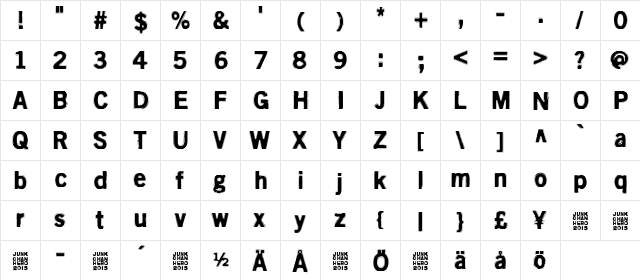
Kivikuoppa Regular
Design Context for Kivikuoppa Typeface
Kivikuoppa takes a measured approach to typography — its balanced proportions and neutral character make it a reliable workhorse for both digital and print work.